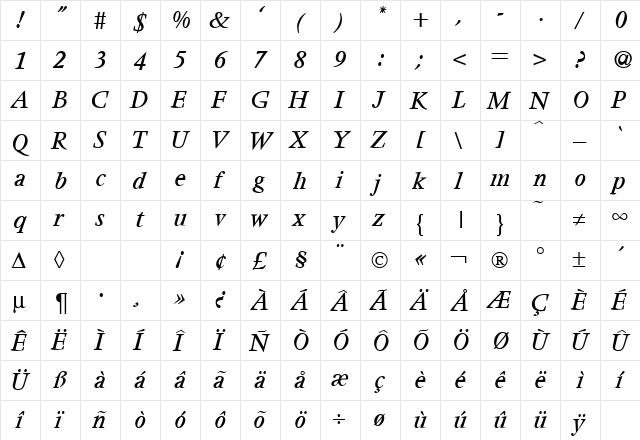
VendomeTwo RegularItalic
Design Context for VendomeTwo Typeface
VendomeTwo is a composed and adaptable typeface that performs quietly and consistently across a wide range of design contexts. The slanted form adds forward momentum and visual energy.
Pro Tip: Try VendomeTwo for annotation and caption copy alongside an upright companion — the contrast in angle creates a dynamic but ordered typographic system.